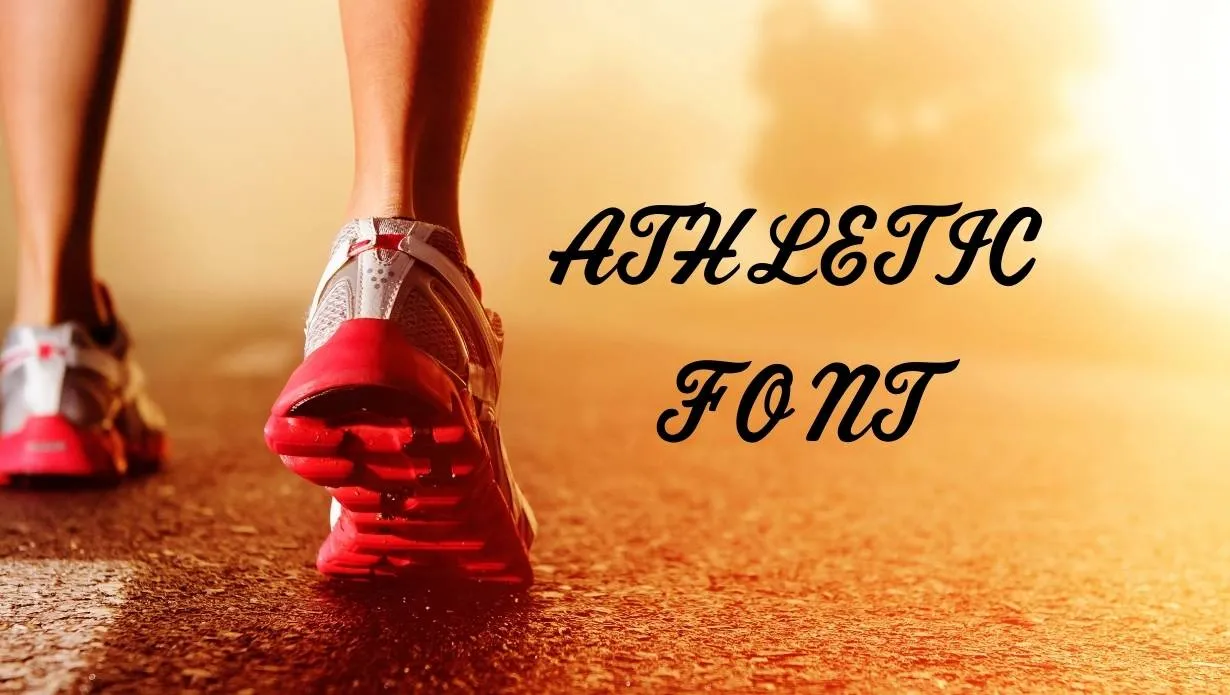
Athletic Font is the vintage script font typeface which gives the best look to any projects. Download and install this typeface on your PC.
Old sport is a vintage font with low curves and instantly cut traces. It becomes designed to look suitable on both big headings and lengthy paragraphs.
Design Of Athletic Font